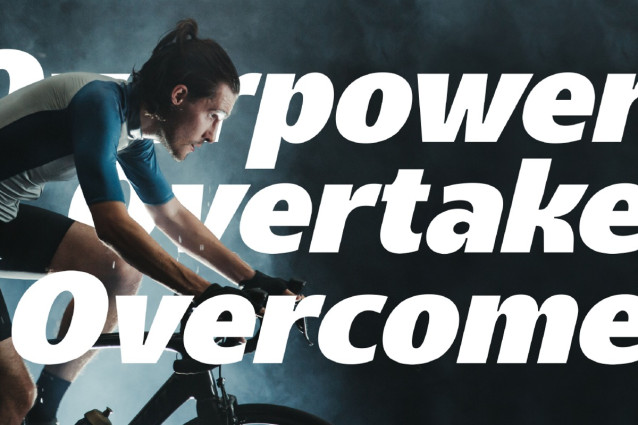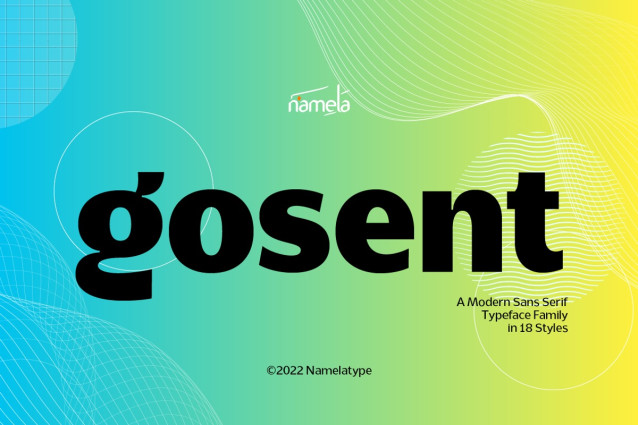
Gosent Font Family
Gosent Font Family is a Modern Sans font, a sans-serif typeface meticulously crafted to make a significant impact. With its generous x-height, it excels in small text sizes, ensuring legibility and readability. This font strikes the right balance with its moderate contrast, adding a touch of sophistication while maintaining clarity.
What sets Gosent Font apart are its special details, including the unconventional ink trap, infusing a contemporary vibe into each character. This unique combination makes GosentFont a versatile choice, suitable for a wide spectrum of design projects, from serious and professional to lively and creative.
The Gosent font family offers a comprehensive range of 9 weight variants, spanning from Thin to Black, each accompanied by its corresponding oblique version. Whether you’re working on branding, editorial, or any creative endeavor, Gosent Font is your reliable partner, ready to enhance your designs with its modern and distinctive style.